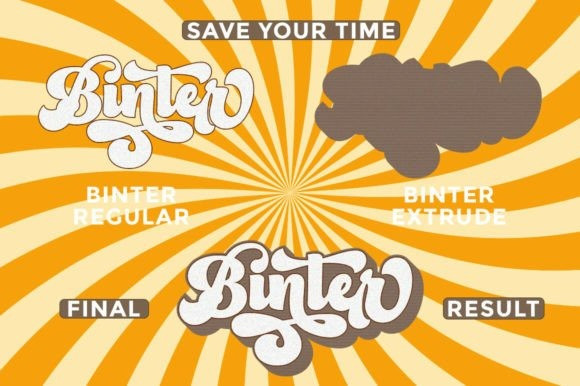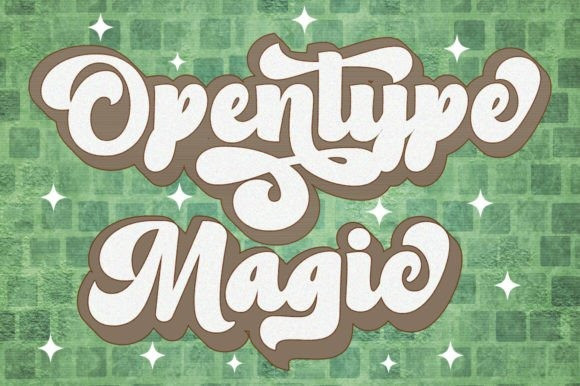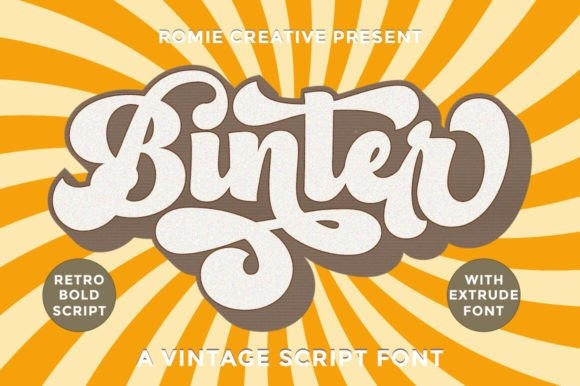
Binter Script Font
Binter Script Font A bold retro script that will take you back to the 60s. This typeface has an extrude version so you can create a retro effect font easily. This font is very suitable for the application, especially on logos, and various other formal forms such as invitations, labels, logos, magazines, books, greeting/wedding cards, packaging, fashion, makeup, stationery, novels, labels, or all kinds of things. advertising purposes.